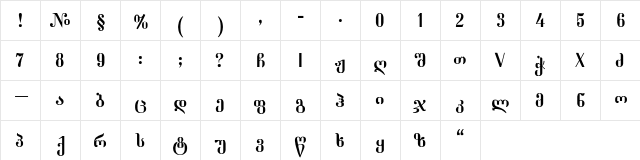
DumbaNusx Regular
Design Context for DumbaNusx Typeface
DumbaNusx is a composed and adaptable typeface that performs quietly and consistently across a wide range of design contexts.